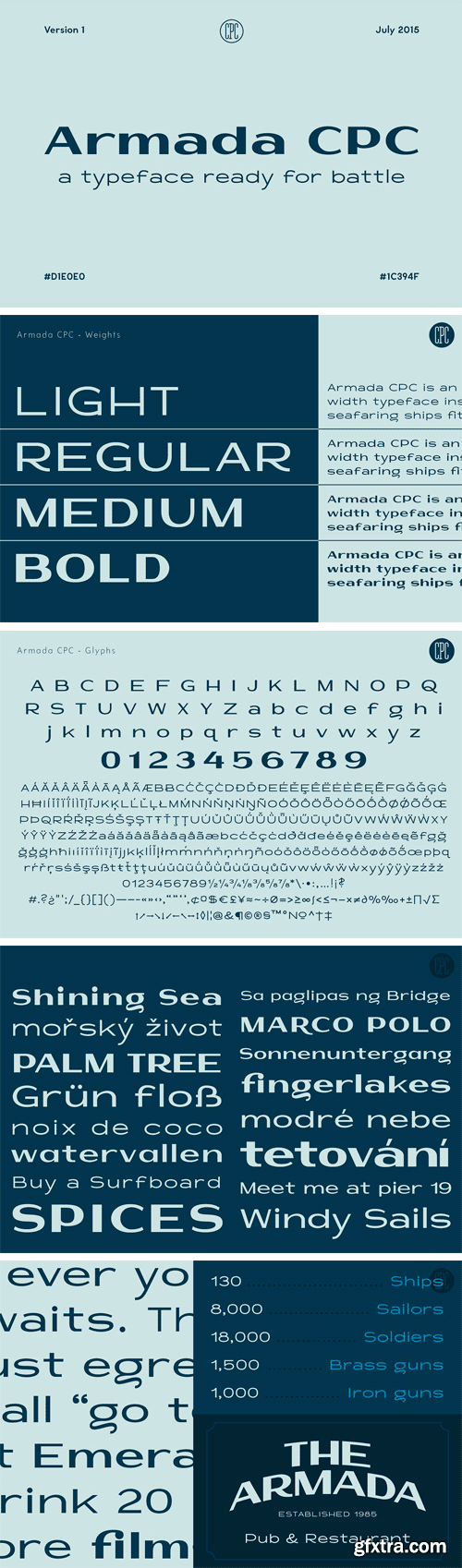
Armada CPC is an extended width typeface inspired by seafaring ships fit for battle. It has a low contrast in Light and Regular weights and high a contrast in Medium and Bold weights. Attack your next design project that needs something sturdy.